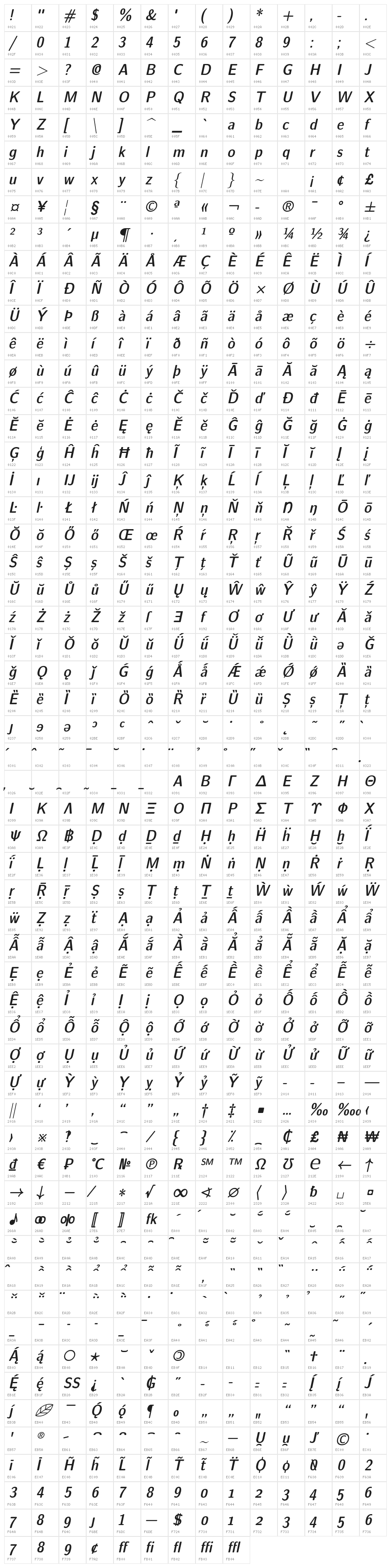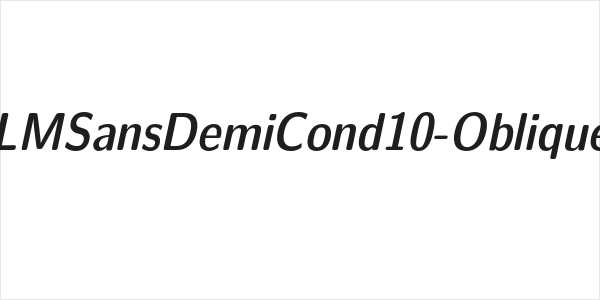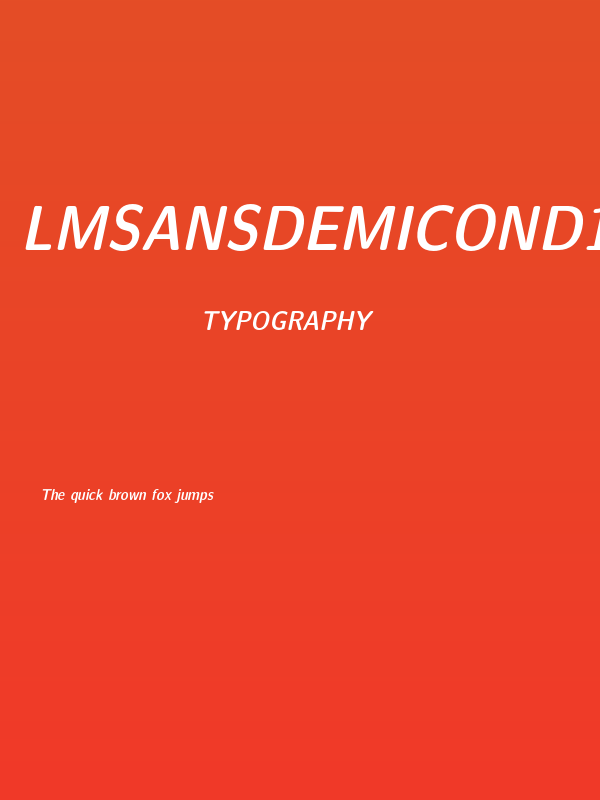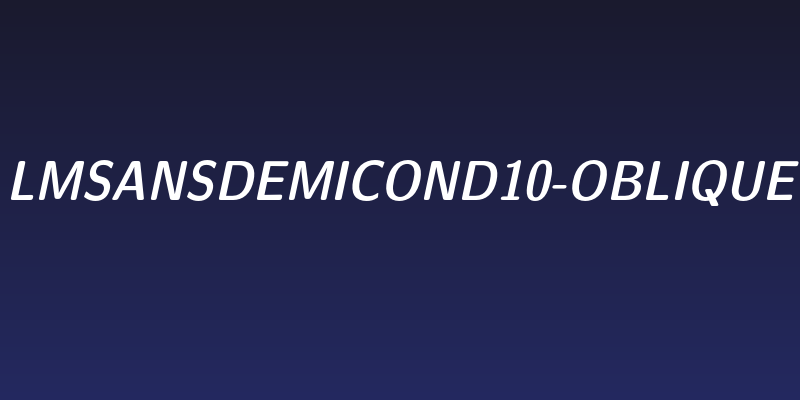
LMSansDemiCond10-Oblique Font
LMSansDemiCond10-Oblique Description
This font features a sleek, modern design with a slight oblique slant, giving it a dynamic and forward-moving appearance. The characters are clean and sans-serif, providing a contemporary look that is both professional and approachable. The strokes are consistent in width, offering a uniform and balanced aesthetic. The font is slightly condensed, allowing for efficient use of space without sacrificing readability. It includes a full set of uppercase and lowercase letters, numerals, and a variety of special characters, making it versatile for various applications.
| Proposed Projects | Ideal for branding, advertising, and editorial design where a modern and professional look is desired. |